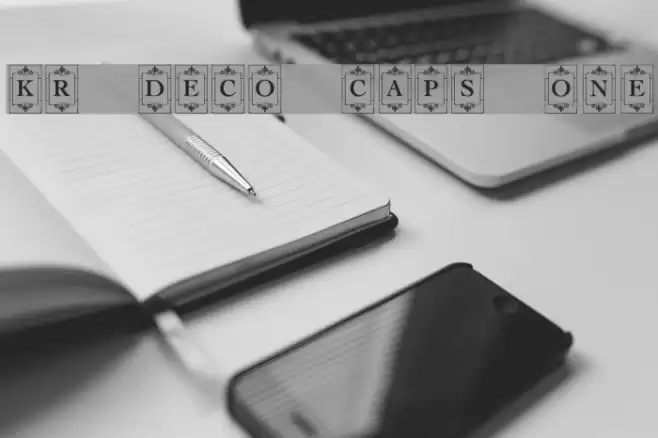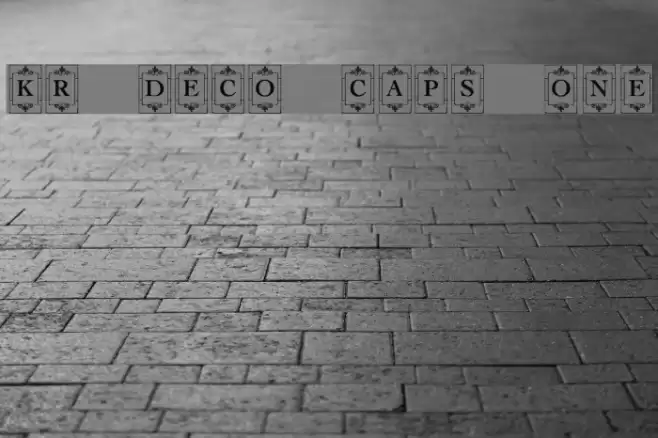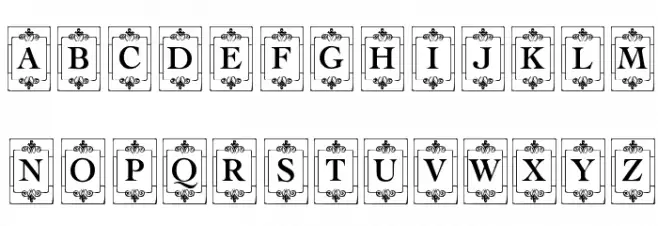
KR Deco Caps One Font
KR Deco Caps One Description
This font features a decorative and ornate style, characterized by its bold, uppercase letters enclosed within a rectangular frame. Each letter is accentuated with intricate floral motifs at the corners, adding an elegant and vintage touch. The design is symmetrical, with a consistent thickness throughout the strokes, giving it a balanced and harmonious appearance. The font's unique presentation makes it stand out, suitable for projects that require a touch of sophistication and classic charm.
An ornate, decorative font with bold uppercase letters framed by floral motifs from Uncategorized fonts.
- Proposed Projects: Ideal for wedding invitations, vintage-themed posters, decorative signage, and branding that requires a classic and elegant touch.
- Overall Style: Vintage